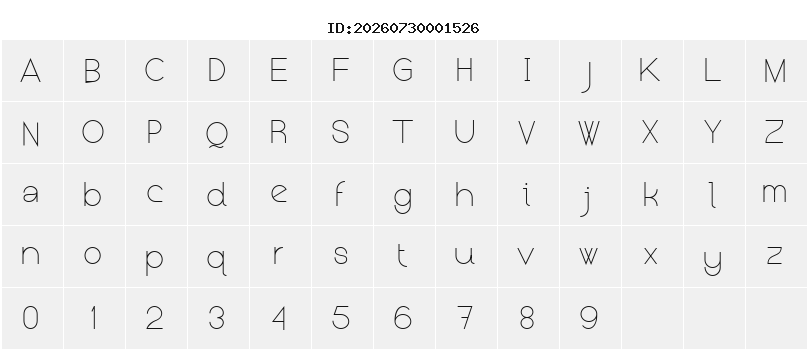
Kerater Preview
• Font Name: Kerater
• Font Style: UltraLight
• Font ID: MnsGrebck: Kerater UltraLight: 2011
• Full Font Name: Kerater UltraLight
• Version: Version 1.000 2011 initial release
• PostScript Name: Kerater-UltraLight
• Character Count: 228
• Designer: Måns Grebäck
• Manufacturer: Måns Grebäck
About Kerater.ttf
Kerater.ttf is a modern, elegant sans-serif font designed for ultimate readability and visual harmony. Perfect for branding, headlines, web design, and print materials.